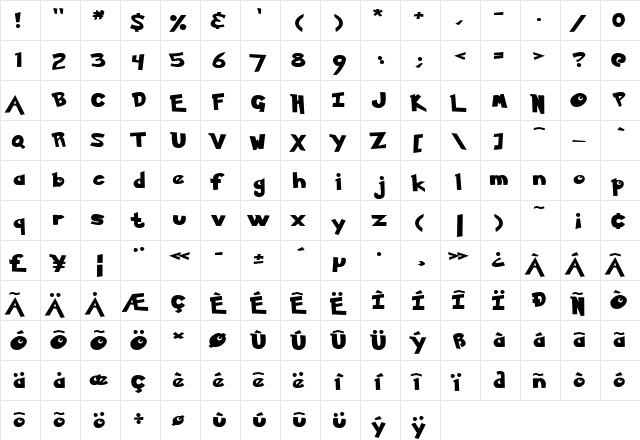
Pokemon Normal
Design Context for Pokemon Typeface
Pokemon is a composed and adaptable typeface that performs quietly and consistently across a wide range of design contexts.